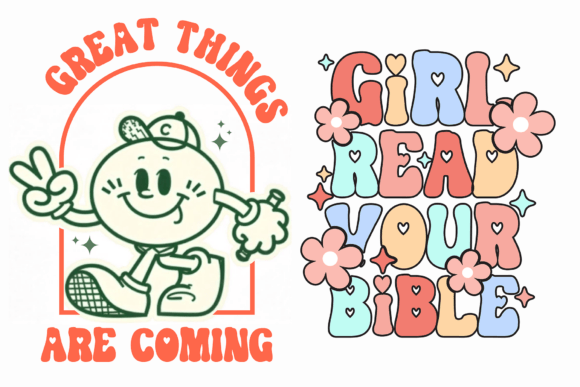
Darling Retro Font
Darling Retro Font is a display font of retro style with a great punch. It will work great for valentine retro style, online games, cards, love shirts, posters, movie titles, eye-catching social media posts, or anything that requires youthfulness . Get into the spirit of love with Retro Love where letters are adorned with hearts.Perfect for Sublimation, SVGs, Crafts, logos, Cards, Quotes, Branding, Ornaments, Mugs, prints, and more!